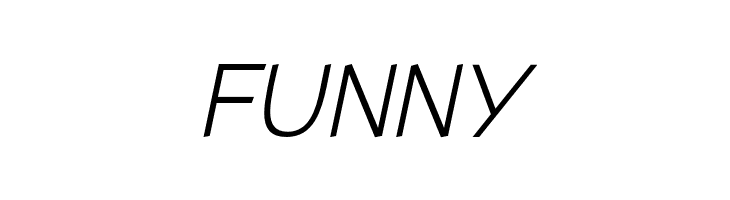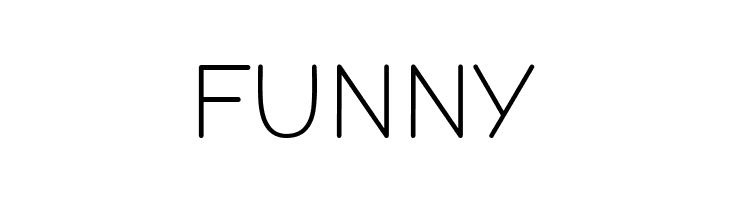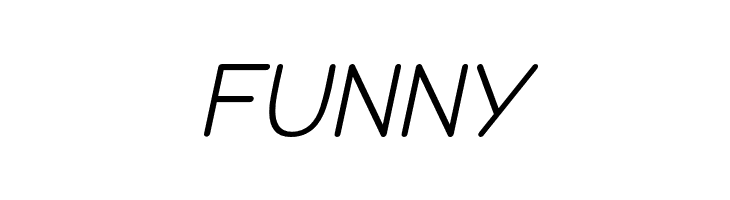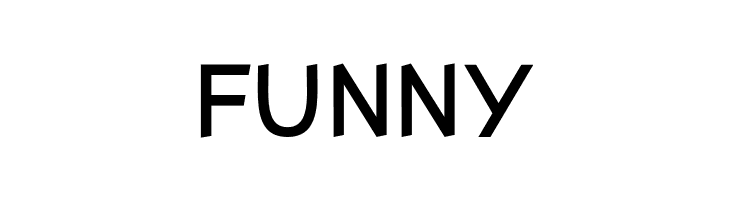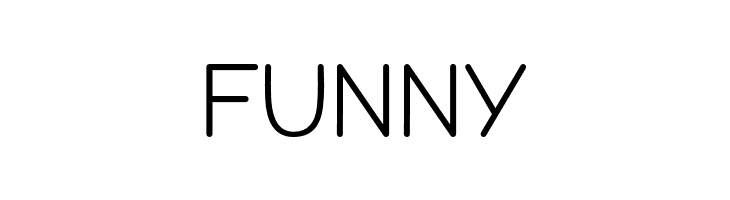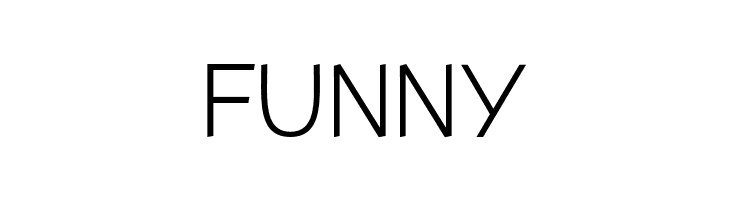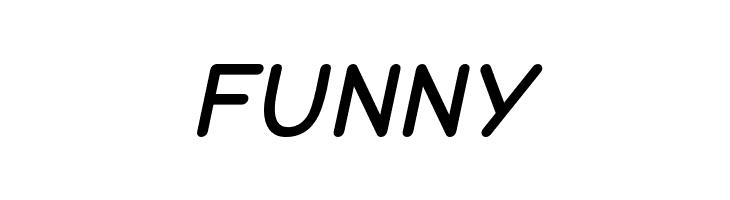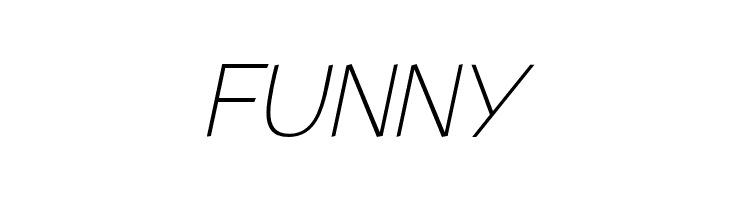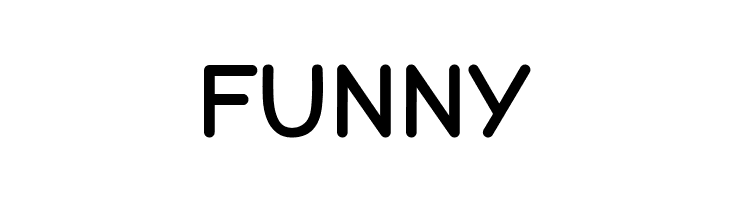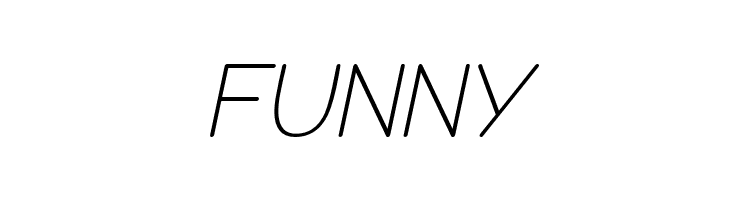
A classic serif font with elegant curves and balanced proportions.
An artistic and illustrative font featuring unique graphic representations for each character.
An elegant and ornate script font with flowing, decorative letterforms.
A playful, rounded font with bold strokes and a friendly vibe.
A bold, rounded font with a playful, modern aesthetic.
A playful, bold script font with a melted chocolate appearance.
A playful, rounded font with bold, smooth curves and a friendly appearance.
A playful, bold, and rounded italic font with a friendly appearance.
A playful, bold font with rounded, thick strokes and a whimsical touch.
A modern, geometric sans-serif font with uniform strokes and balanced characters.
A bold, geometric font with a modern and clean design.
A bold, modern sans-serif font with clean lines and rounded edges.
A modern, italicized font with smooth curves and consistent stroke width.
A modern, minimalist sans-serif font with smooth curves and uniform strokes.
A sleek, modern, light italic font with smooth, uniform strokes.
A modern, minimalist font with thin strokes and rounded edges.
A sleek, thin, and italicized font with a modern aesthetic.
A bold slab serif font with strong, block-like serifs and consistent weight.
A bold, serif font with strong, thick strokes and a vintage touch.
Expressive, bold brush script with playful curves.
A dynamic, brush-style font with a hand-painted appearance.
A dynamic, expressive handwritten font with fluid, sweeping strokes.
A bold, robust font with thick strokes and a slightly condensed style.
A playful and quirky font with irregular, whimsical letterforms.
A playful, handwritten font with smooth, rounded strokes and a casual style.
A bold, flowing script font with elegant curves and loops.
A bold, geometric font with a mid-20th-century aesthetic.
A bold, geometric outline font with a mid-century modern aesthetic.
A dynamic brush-style font with expressive, fluid strokes.
A bold, decorative font with a three-dimensional, industrial look.
A dynamic and elegant script font with flowing, cursive letterforms.